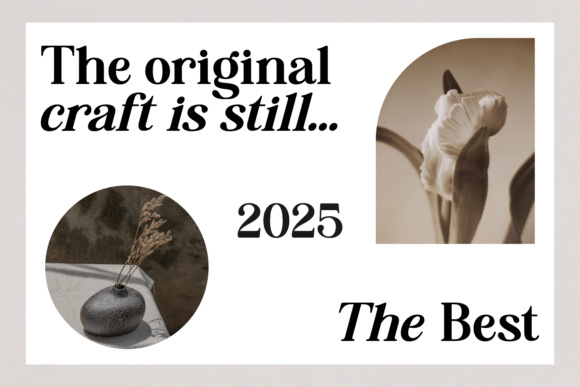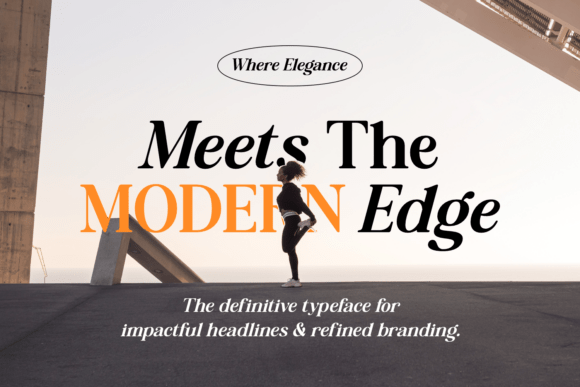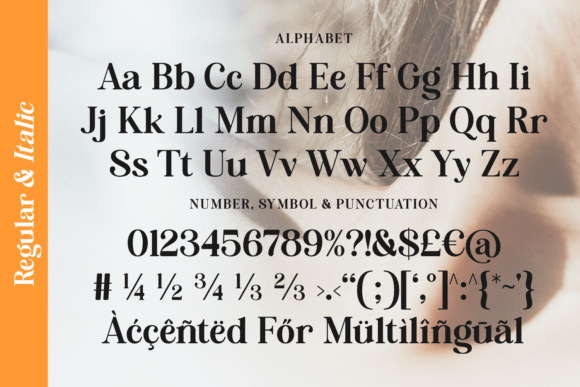
Unleashing the Timeless Elegance of Archive Reborn Font
As designers, we’ve all been there – staring at a blank canvas, trying to conjure up the perfect typography to capture the essence of our latest project. It’s that moment of creative frustration, when the right font can make all the difference between a good design and a great one.
Enter Archive Reborn Font, a modern serif font that effortlessly blends timeless sophistication with contemporary flair. With its elegant curves, balanced proportions, and refined serifs, this font is the perfect addition to any designer’s toolkit. Whether you’re working on branding, editorials, or luxury packaging, Archive Reborn Font is sure to elevate your typography projects to the next level.
For designers, Archive Reborn Font is a valuable asset that offers versatility and a touch of sophistication to any project. Its beautifully crafted italic style adds an extra layer of elegance, making it the perfect choice for those seeking to make a lasting impression.
Archive Reborn Font Key Features
- Font Family: Archive Reborn is a serif font with a vintage aesthetic, designed to evoke a sense of nostalgia and classic elegance.
- Font Size: Archive Reborn is available in a range of font sizes, from 8 to 144 points, making it suitable for both body text and display headings.
- Resolution: Designed to work at high resolutions, Archive Reborn is ideal for use in print and digital applications, including magazines, books, and websites.
- Unique Characteristics: This font features intricate details, such as ornate flourishes and subtle texture, which add to its unique charm and sophistication.
- Font Weight: Archive Reborn is available in 8 weights, from Light to Black, allowing for a high degree of flexibility and customization in typography.
Archive Reborn Font Review
Overall, I was quite impressed with the Archive Reborn Font. Here are some of the things that worked well for me:
- ✨ Elegant and refined aesthetic: The Archive Reborn Font has a sophisticated and refined look that’s perfect for corporate or high-end branding.
- ✨ Versatile font style: It’s available in multiple font styles, from light to bold, making it suitable for a wide range of applications.
- ✨ Highly legible: The font is well-designed and easy to read, even at smaller font sizes.
- ⚠️ Limited language support: Unfortunately, the Archive Reborn Font only supports a limited number of languages, which might be a concern for international branding.
- ⚠️ Not ideal for bold text: While the font has a bold style, it can look a bit clunky when used extensively, so be cautious with its use.
Overall, I’d say the Archive Reborn Font is a solid choice for designers looking for a refined and elegant font. While it has some limitations, its versatility and legibility make it a great option for a wide range of projects.
For optimal results, use Archive Reborn Font in conjunction with a high-contrast background and bold graphics.
Experiment with different font sizes and styles to achieve a unique look.
Archive Reborn Font is ideal for:
1. Vintage-inspired designs.
2. Rustic or distressed textures.
3. Retro-themed projects.
Compared to Archive Reborn Font, Playfair Display has a more ornate and luxurious feel, while Archive Reborn Font has a more modern and sophisticated look. Playfair Display is ideal for designs that require a touch of elegance and sophistication, whereas Archive Reborn Font is better suited for modern and minimalist designs.
Q: What is the character set of the Archive Reborn Font?
The Archive Reborn Font includes a comprehensive character set, covering Latin, Cyrillic, and Greek alphabets, as well as a range of punctuation marks and symbols. The font also includes support for various languages, including English, Spanish, French, German, Italian, Portuguese, Dutch, Swedish, Danish, Norwegian, and more.